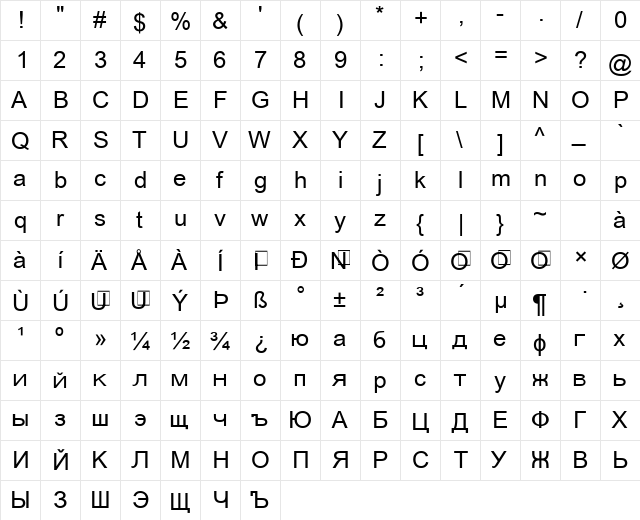
Arial-Relcom KOI-8 Cyrillic
Design Context for Arial-Relcom Typeface
Arial-Relcom takes a measured approach to typography — its balanced proportions and neutral character make it a reliable workhorse for both digital and print work.